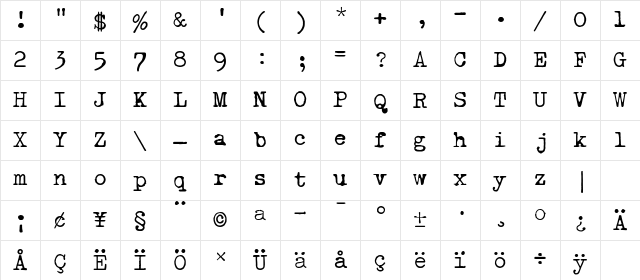
X Typewriter Regular
Foundry: GGBotNet
Designer: GGBotNet
Design Context for X Typewriter
X Typewriter uses fixed-width spacing throughout, giving it the structured, systematic character associated with coding environments and technical documentation.
Pro Tip: Use X Typewriter with slightly increased line-height for extended reading - fixed-width spacing can feel dense in longer passages without extra breathing room.
Who designed the X Typewriter Regular font?